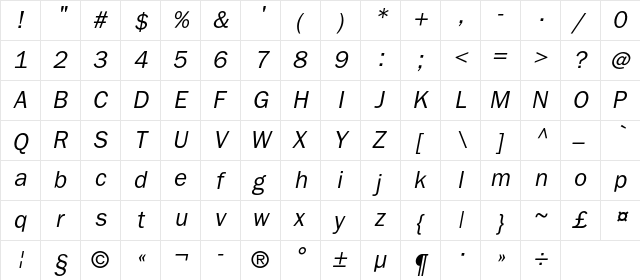
BloknotC Italic
Design Context for BloknotC Typeface
BloknotC is a composed and adaptable typeface that performs quietly and consistently across a wide range of design contexts. Its italic angle brings a sense of urgency and motion to the letterforms.
Pro Tip: Use BloknotC for emphasis, pull quotes, and subheadings where its slanted energy can add rhythm to the layout.